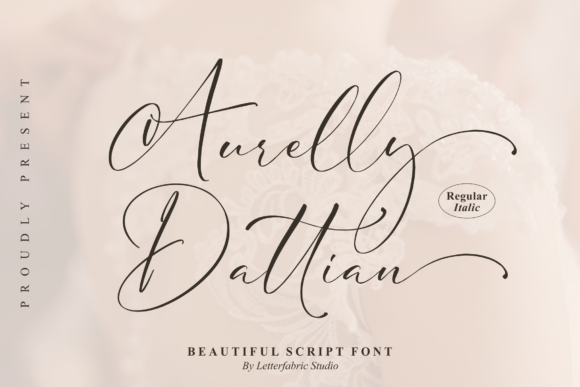
About Aurelly Dattian Font
Aurelly Dattian is a trendy and beautiful script font. It is suitable for any projects such as: logos, branding projects, homeware designs, product packaging, mugs, quotes, posters, shopping bags, t-shirts, book covers, and all your other lovely projects that need a beautiful script taste. This font is PUA encoded which means you can access all of the glyphs and swashes with ease!